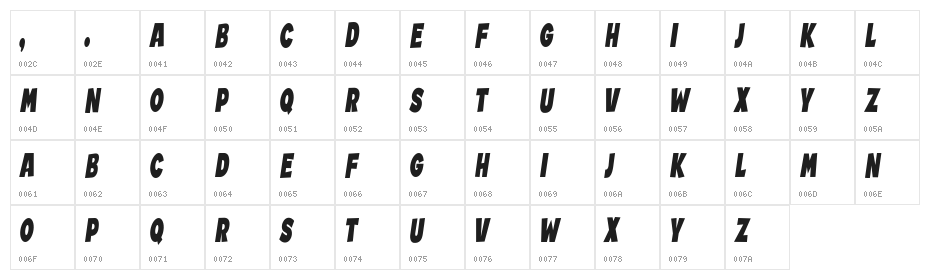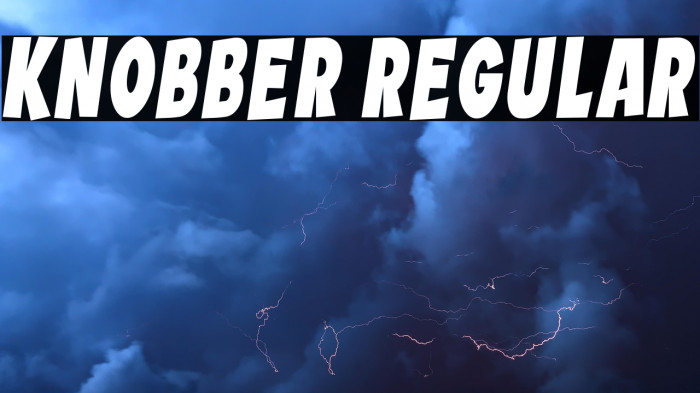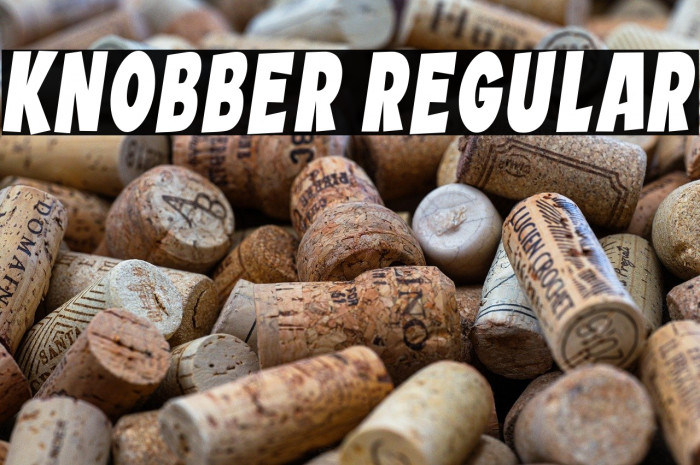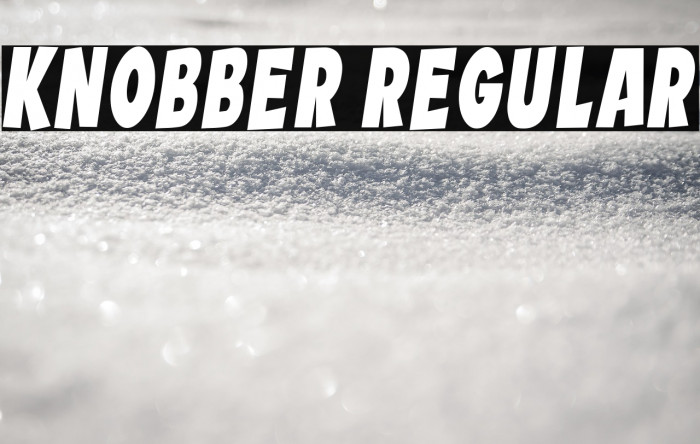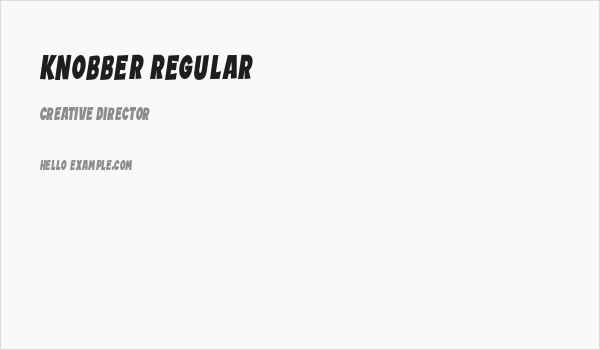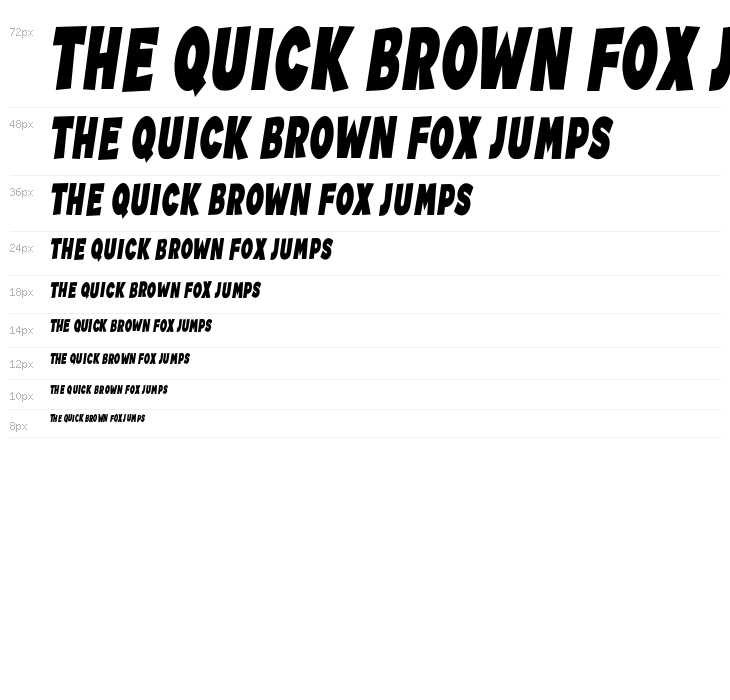
Knobber Regular Font
Knobber Regular Description
This bold and dynamic font features thick, heavy strokes with a slight slant, giving it a sense of movement and energy. The characters are tightly spaced, enhancing its bold appearance. The uppercase letters are particularly striking, with a strong presence that commands attention. The font's style is reminiscent of vintage poster typography, yet it maintains a modern edge. Its unique character shapes, such as the angled terminals and slightly exaggerated curves, add to its distinctive look. This font is ideal for making a statement in any design project.
| Proposed Projects | Ideal for posters, headlines, branding, and any project requiring a bold, attention-grabbing typeface. |